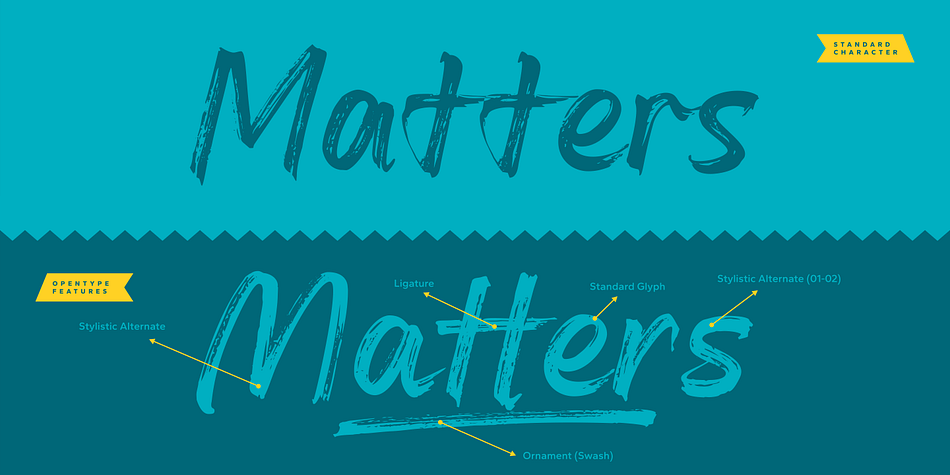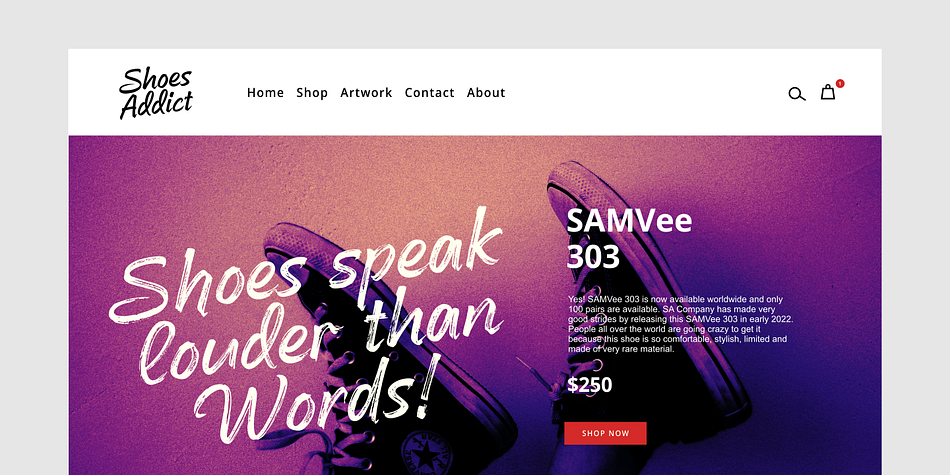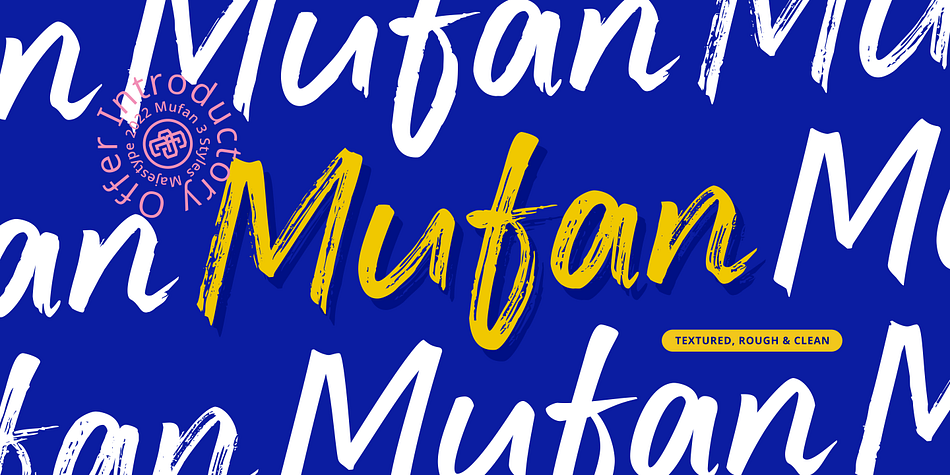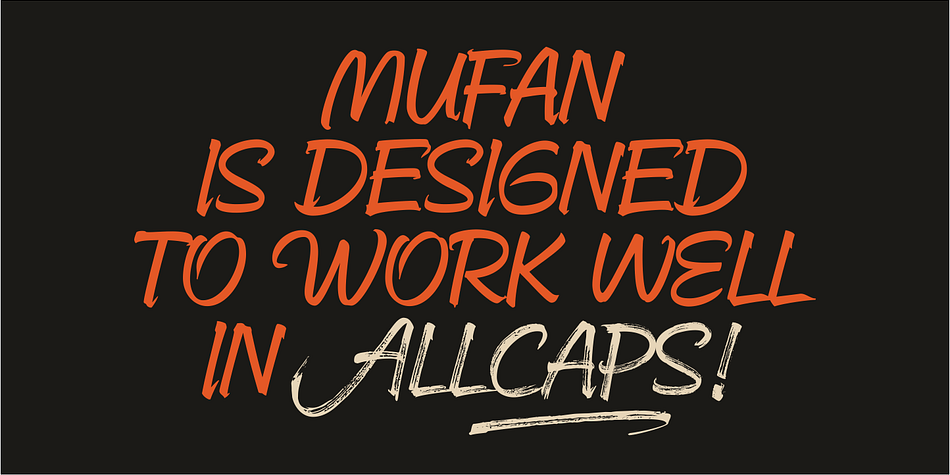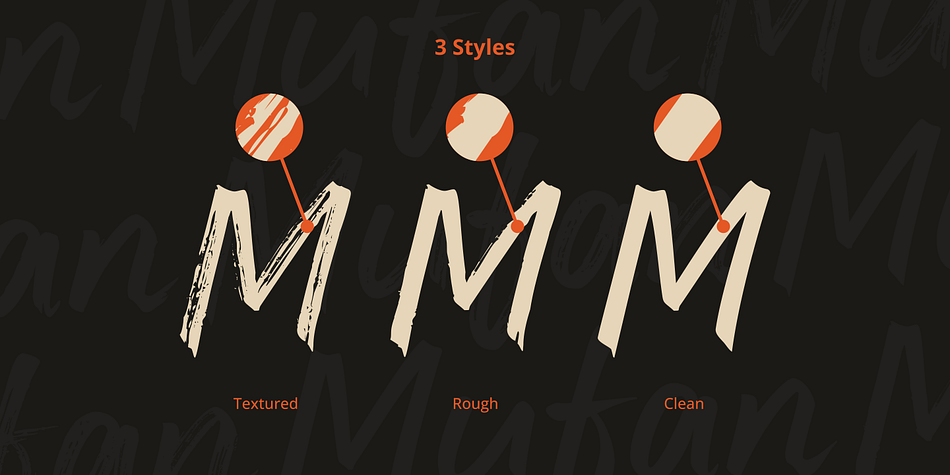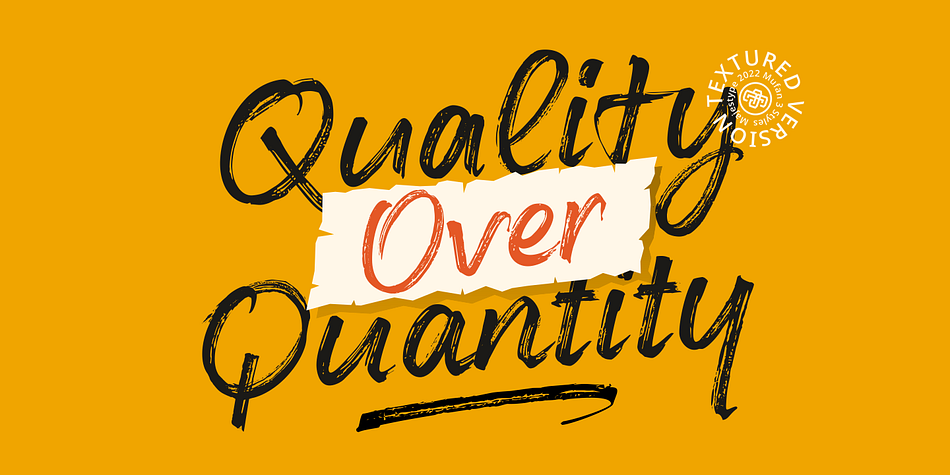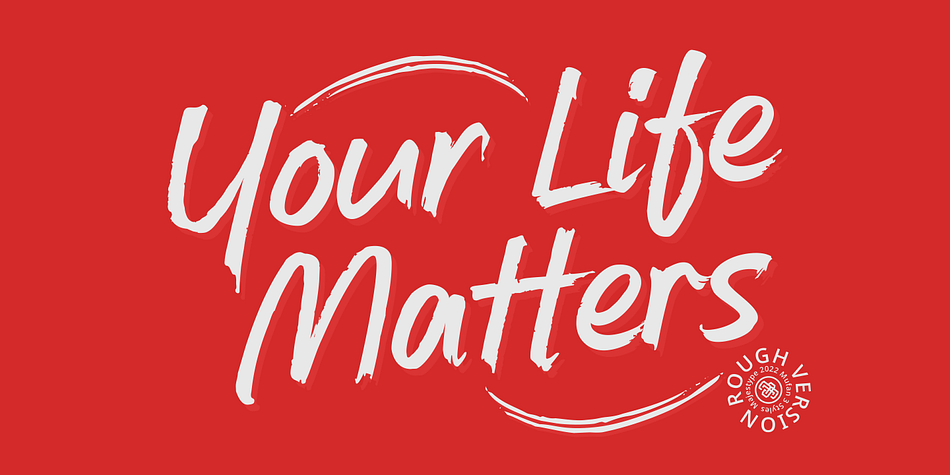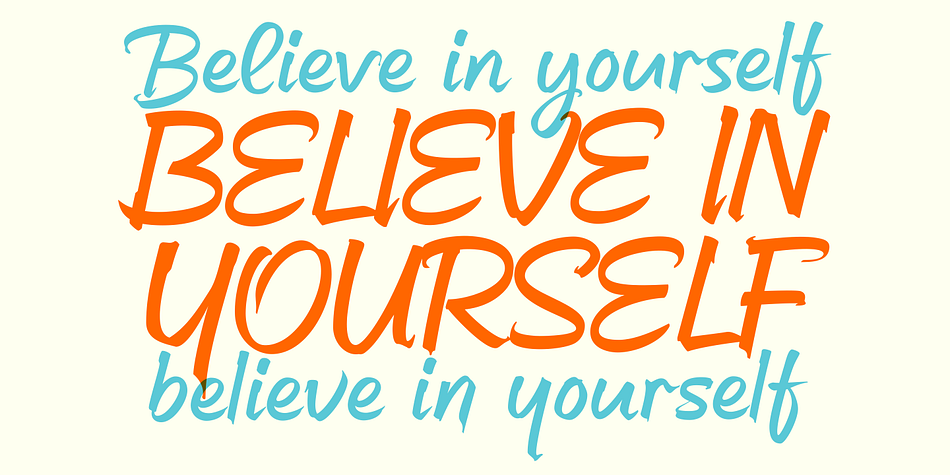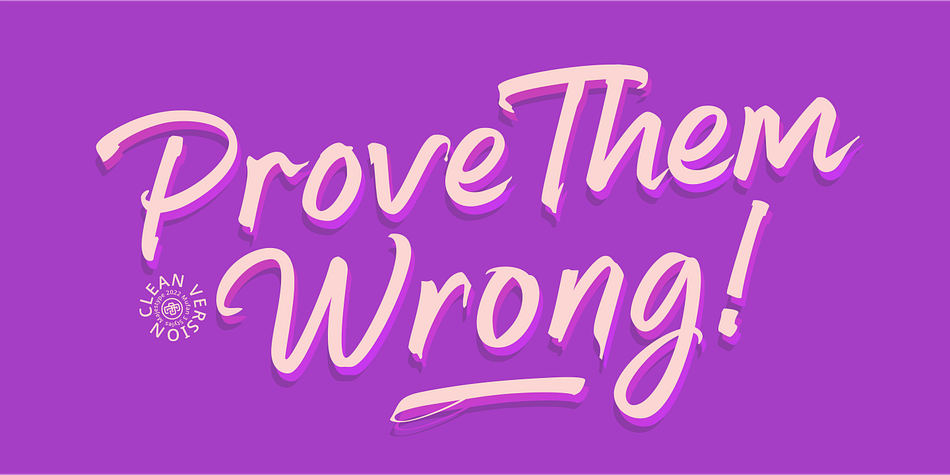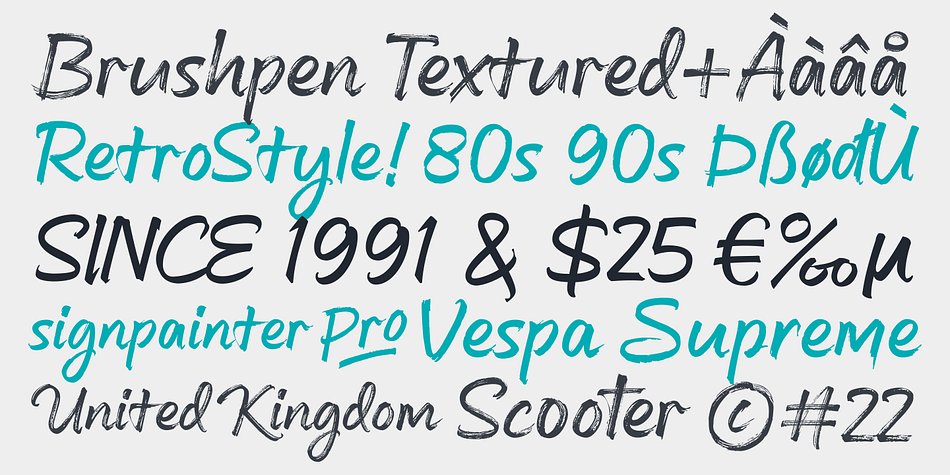
Designed by Dexsar Anugrah, Mufan is a script font family. This typeface has four styles and was published by Majestype.
Mufan is a Typeface project with a simple concept that wants to emphasize readability and can be used in almost anything. Through this idea we made it in 3 styles, textured, rough and clean aiming to give the impression of handwriting, retro, vintage and modern.
To make it work well in various design conditions. Mufan comes with 260 Glyphs, has support for OpenType features, and has been specially designed to work well in uppercase only, lowercase only, or in sentences, and titles.